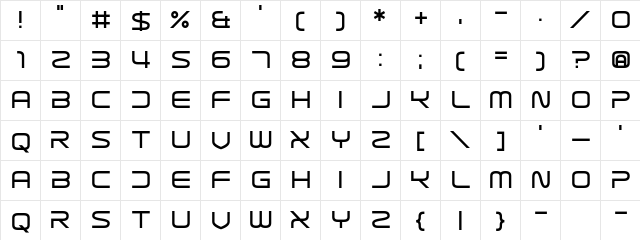
Sterilict Regular Font Preview
Sterilict Regular
Sterilict Regular Font Details
| Designer | Allison James |
Design Context for Sterilict Typeface
Sterilict takes a measured approach to typography — its balanced proportions and neutral character make it a reliable workhorse for both digital and print work.